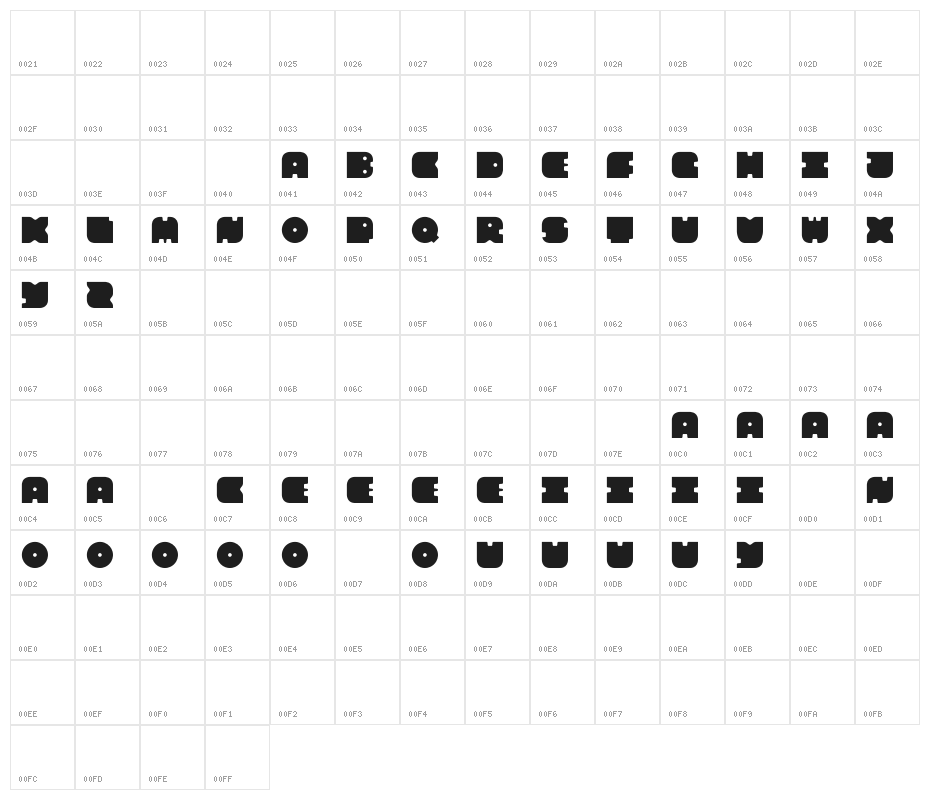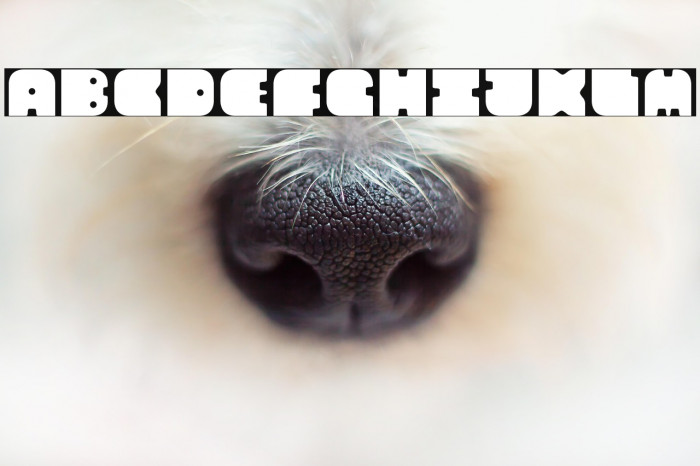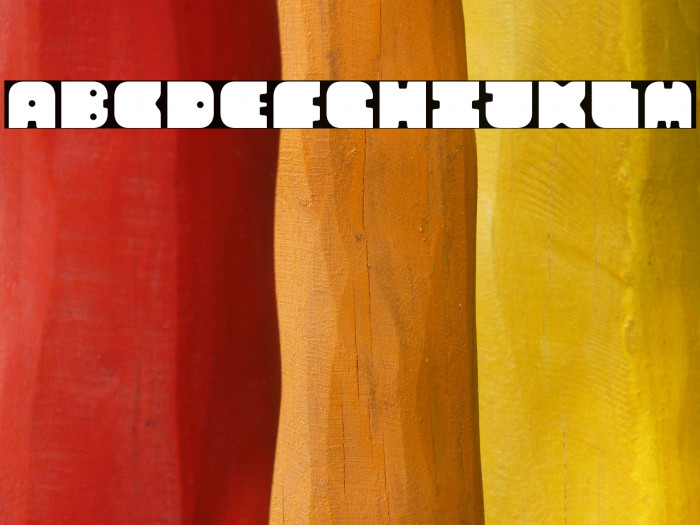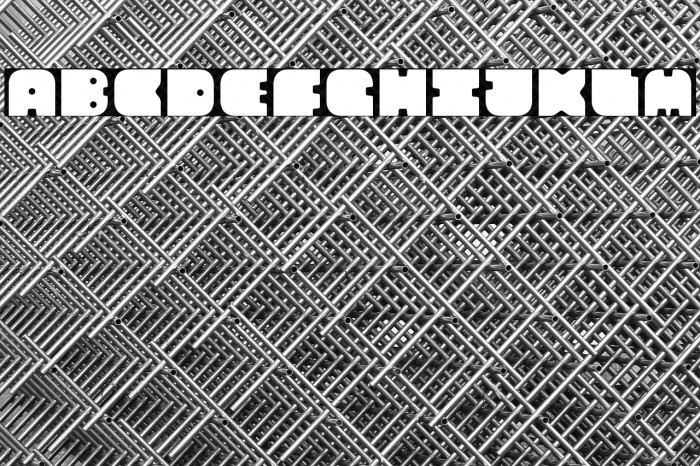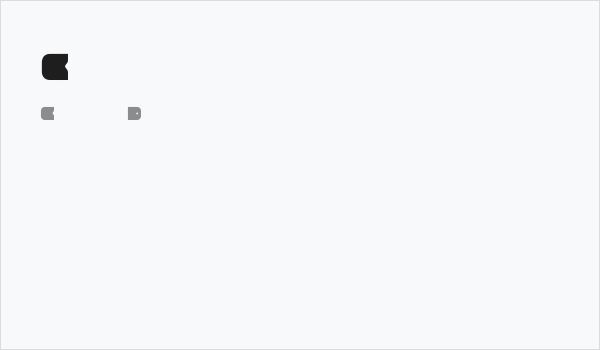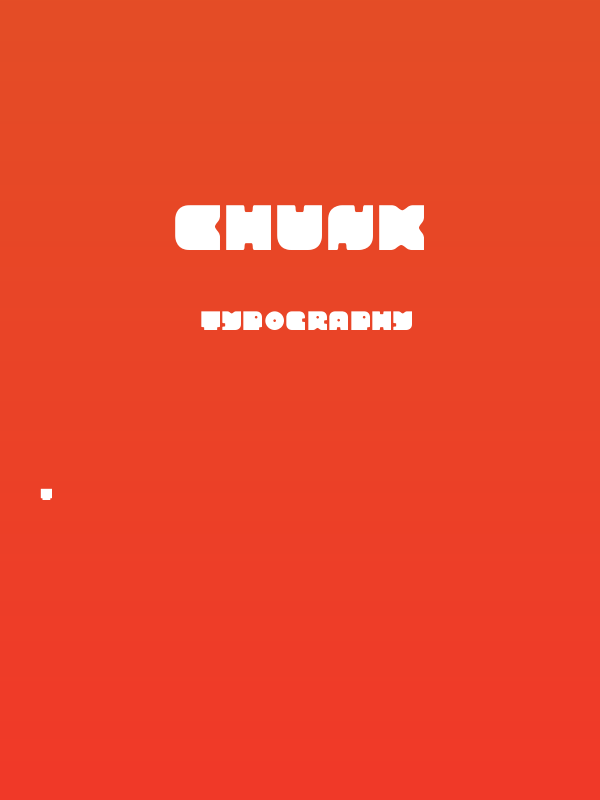
Chunk Font
Chunk Description
This font features a bold and chunky design with a playful and modern aesthetic. The characters are heavily rounded with a uniform thickness, giving them a strong and impactful presence. The style is reminiscent of retro or vintage typefaces, yet it maintains a contemporary appeal. The uppercase letters are particularly striking, with a consistent height and width that create a cohesive look. The font lacks any serifs, emphasizing its sans-serif nature, and the absence of sharp edges contributes to its friendly and approachable feel. This typeface is ideal for making a bold statement in any design project.
| Proposed Projects | Ideal for logos, posters, headlines, and branding materials that require a strong visual impact. |